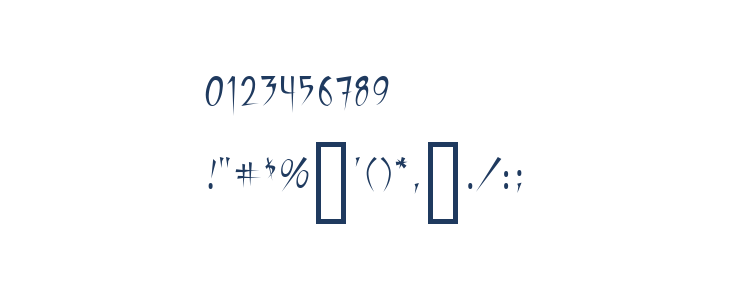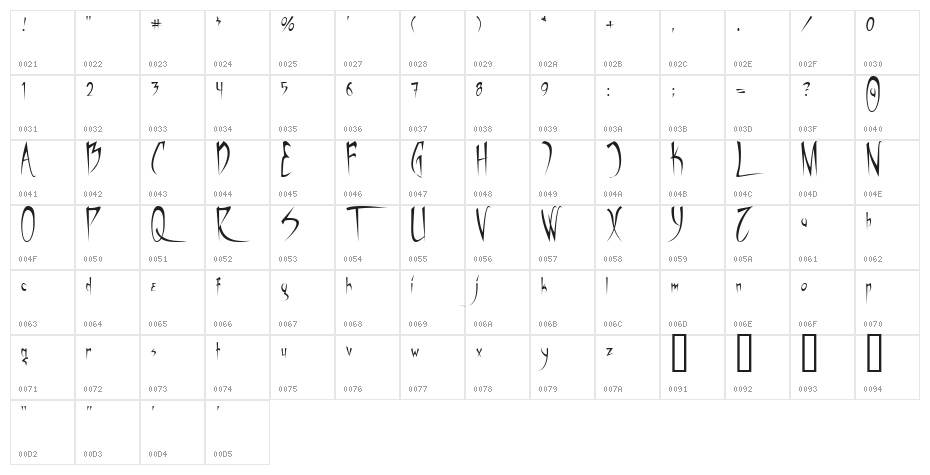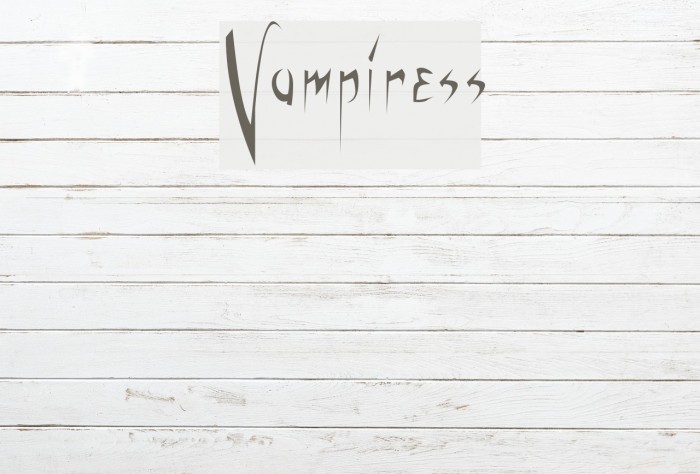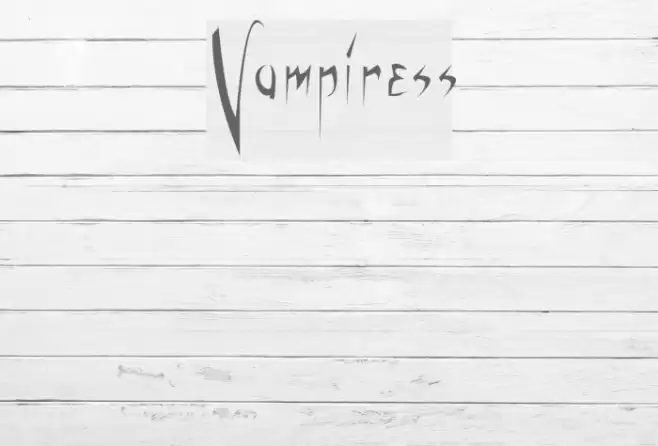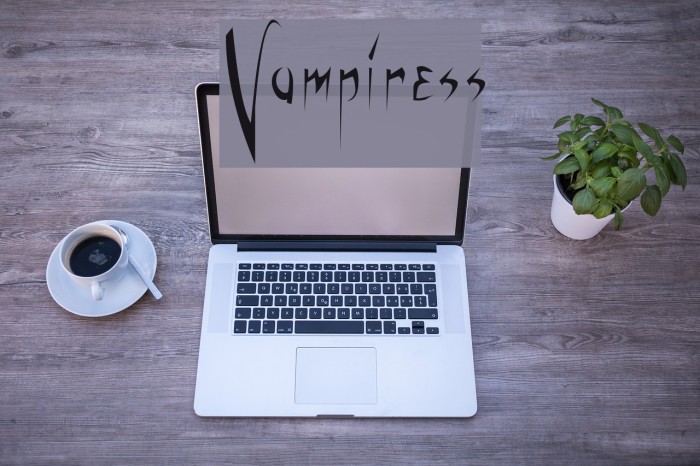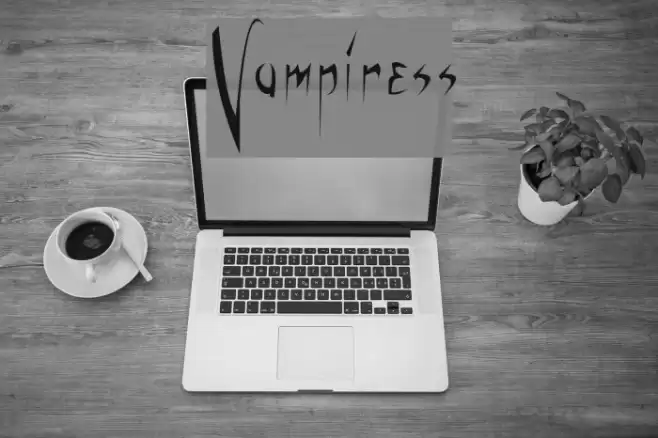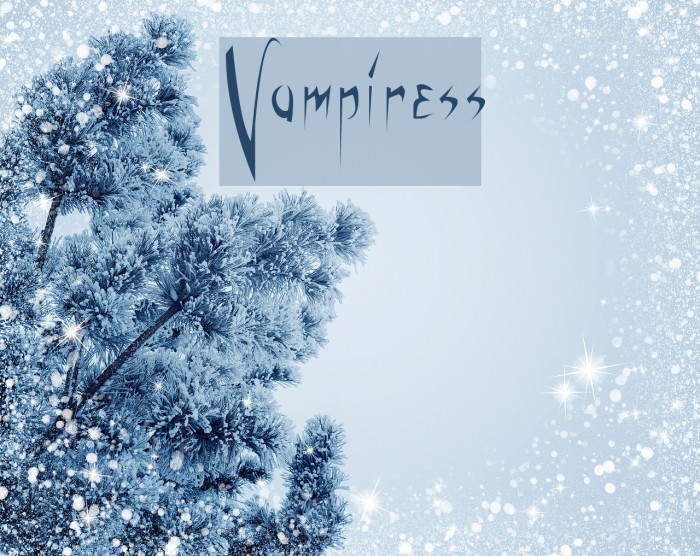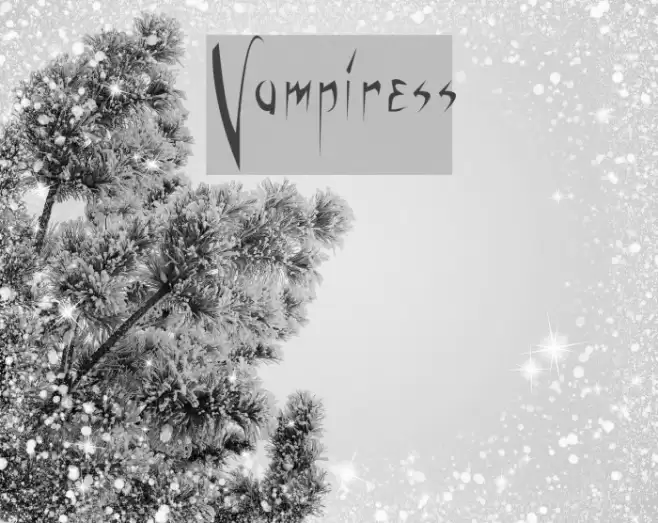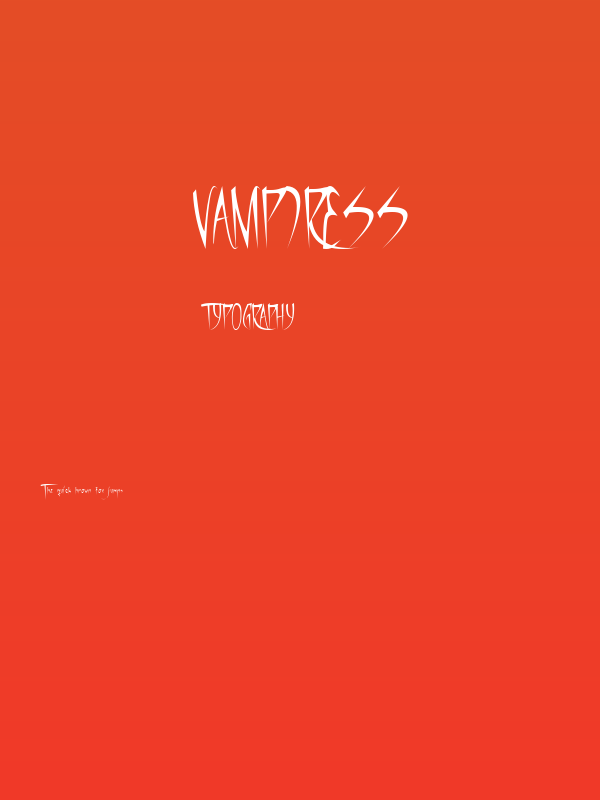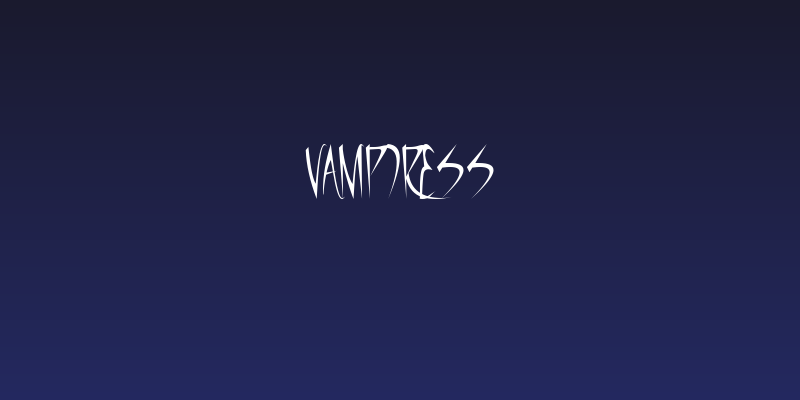
Vampiress Font
Vampiress Description
This font features a dramatic and gothic style with elongated, sharp serifs and a distinctively angular design. The uppercase letters are bold and striking, with exaggerated curves and pointed ends that give a sense of mystery and elegance. The lowercase letters maintain a consistent style, with a slightly more delicate appearance, yet still retaining the sharpness and flair of the uppercase. Numbers and special characters follow the same aesthetic, ensuring a cohesive look across all text. The overall design evokes a sense of the supernatural, making it ideal for projects that require a touch of the dramatic or eerie.
| Overall Style | Gothic, Dramatic |
| Proposed Projects | Ideal for horror-themed posters, Halloween invitations, book covers, or any project requiring a mysterious and dramatic flair. |